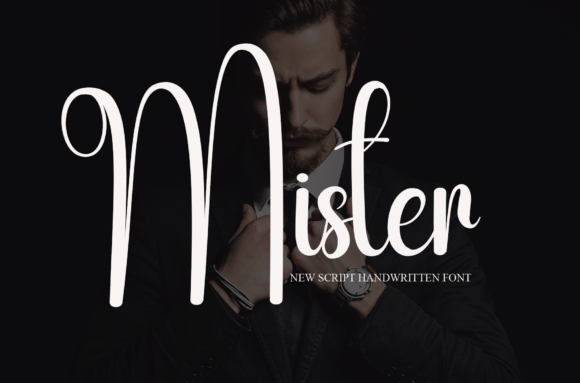
In the vast realm of typography, where beauty meets expression, there lies an enchanting script font that has captured the hearts of many – Mister. Created by the visionary William Jhordy, Mister is not just a font; it's an experience, a journey into the world of elegance and charm.
Mister is the perfect harmony of sophistication and playfulness, a dance of curves and strokes that comes alive on any design canvas. Its sweet and friendly persona adds an irresistible warmth to your words, drawing your audience in with a sense of intimacy and connection. Whether you're crafting wedding invitations, personalizing greeting cards, or designing whimsical posters, Mister is your perfect companion.
Imagine your wedding invitation, adorned with Mister's graceful letters, becoming a cherished keepsake for years to come. Its delicate strokes, reminiscent of a gentle summer breeze, carry the promise of love and happiness. Your heartfelt words, etched in Mister's timeless charm, will resonate deeply with your loved ones, leaving an everlasting impression.
Or envision your greeting cards, transformed into tiny works of art, thanks to Mister's playful spirit. Its whimsical curves and cheerful demeanor bring a smile to the face of anyone who receives them. Let Mister be your ambassador of joy, spreading warmth and cheer wherever it goes.
But Mister's versatility doesn't end there. Its friendly and approachable style lends itself seamlessly to children's books, posters, and even logos. With Mister at your disposal, the possibilities are endless.
Bring your designs to life with Mister, the font that speaks volumes without uttering a single word. It's the perfect font for storytellers, dreamers, and anyone who wants to sprinkle a touch of magic into their creations.